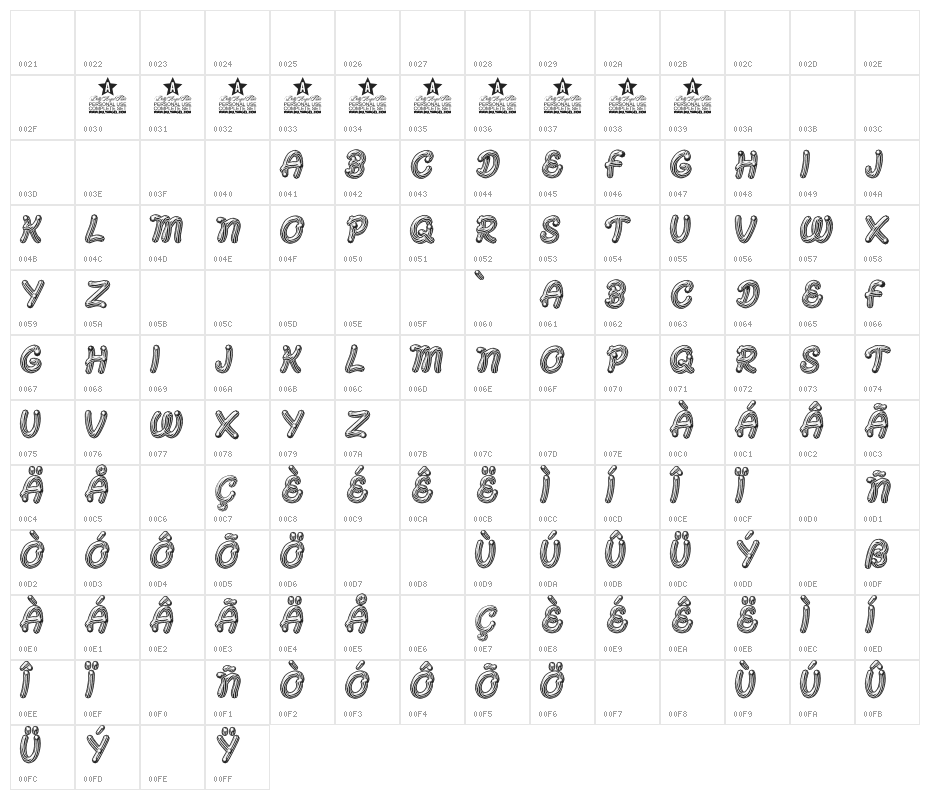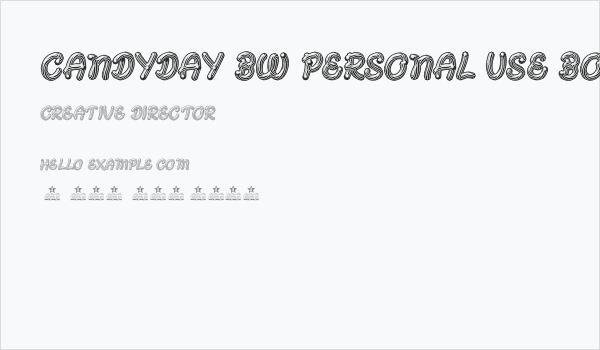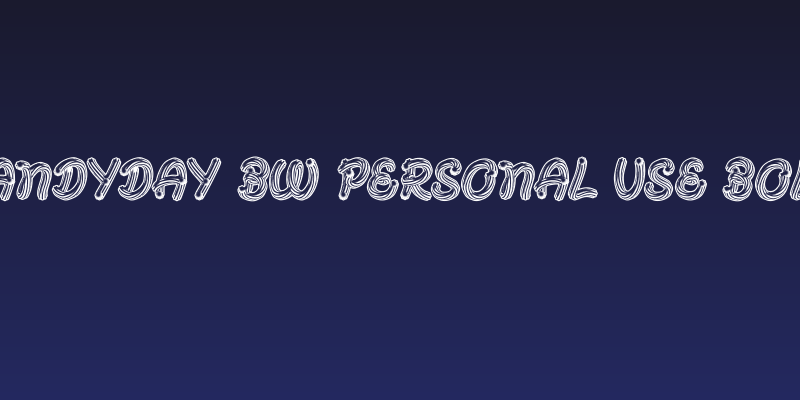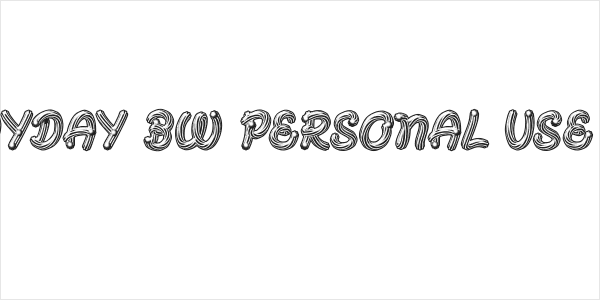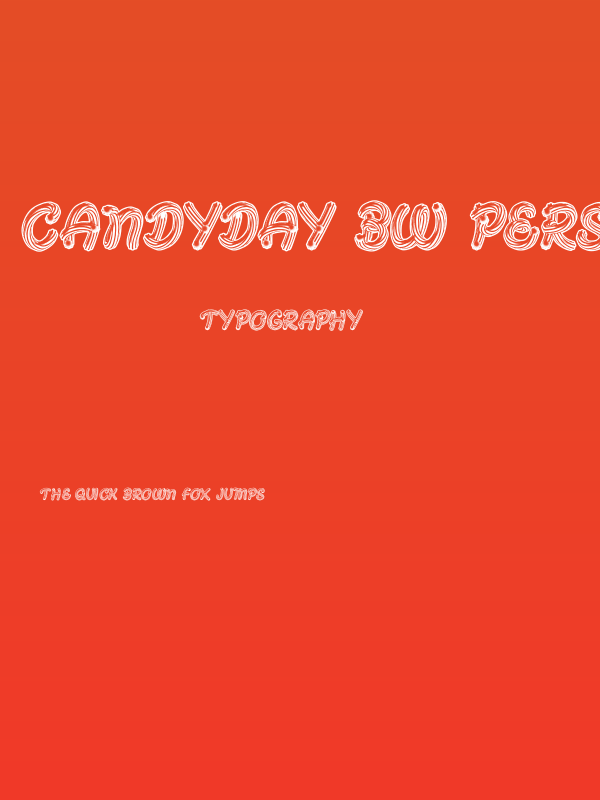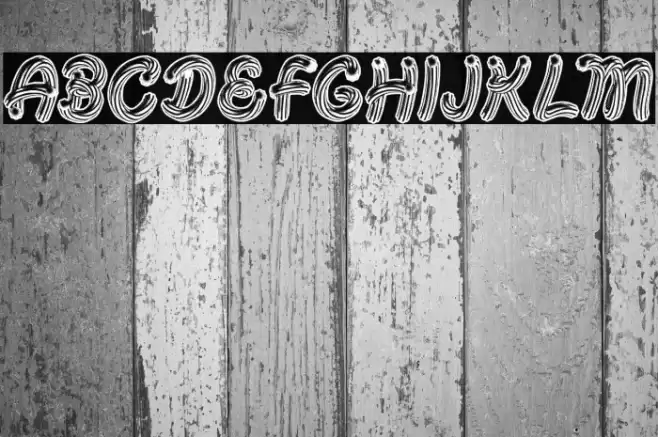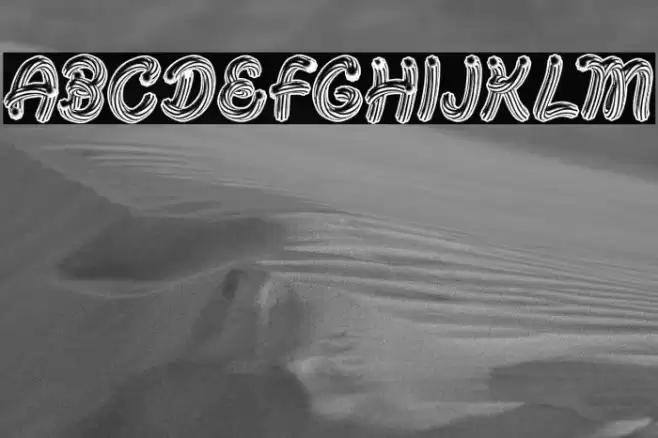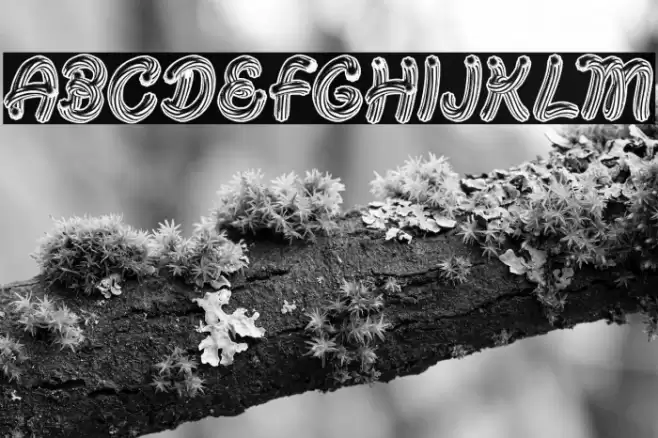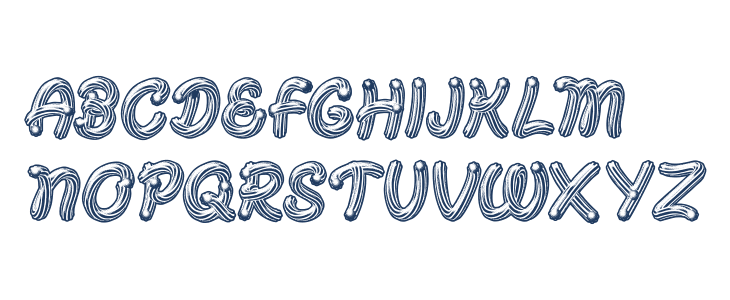
CANDYDAY BW PERSONAL USE Bold Font
CANDYDAY BW PERSONAL USE Bold Description
This font features a playful and bold design with a three-dimensional, candy-like appearance. Each character is crafted with thick, rounded strokes that give it a voluminous and textured look. The letters have a consistent width and are filled with intricate line patterns that enhance their visual appeal. The style is reminiscent of vintage candy packaging, making it both nostalgic and eye-catching. The uppercase and lowercase letters maintain a uniform style, ensuring readability while adding a decorative flair. This font is ideal for projects that require a fun and engaging aesthetic.
| Overall Style | Vintage |
| Proposed Projects | Ideal for children's book covers, candy packaging, playful posters, and event invitations. |